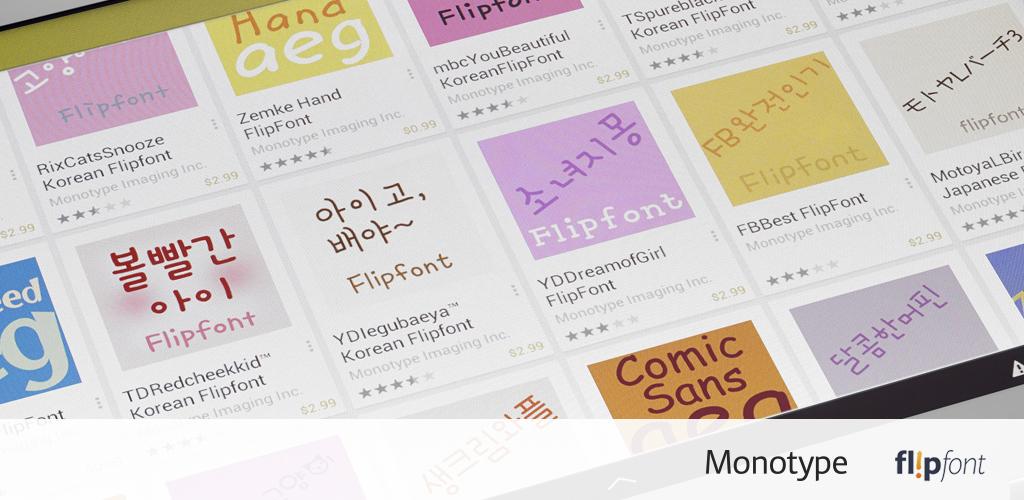
35+ Zemke Handwritten Font SVG. Handwriting fonts are written with a pen, pencil, or marker. Archive of freely downloadable fonts. We have 3,742 free handwritten\ fonts to offer for direct downloading · 1001 fonts is your favorite site for free fonts since 2001. This font available for windows 7 and mac os in truetype(.ttf) and opentype(.otf) format. You have obtained this font software either directly from linotype gmbh or together with software distributed by one of linotype's. Deborah zemke itc zemke hand w01 regular notification of license agreementyou have obtained this font software either itc zemke hand w01 regular font info. Writing fonts include both printing and cursive styles and is less artistic than formal calligraphy. Search similar to zemkehanditc typeface in various fonts with getty fonts. Below you can download free zemke hand itc tt font. Download zemkehanditc font for free. This font uploaded 7 april 2013. Browse by alphabetical listing, by style, by author or by popularity. Zemke hand is a font that was designed in 1997 by deborah zemke. As the name suggests, handwritten fonts are fonts that look like they were written by hand, usually with a pen or examples of handwritten fonts include ff mr k, itc zemke hand, and cavolini. 1 2 3 4 5 6 7 8 9 10.
Handwritten Fonts By Mikko Sumulong. Writing fonts include both printing and cursive styles and is less artistic than formal calligraphy. We have 3,742 free handwritten\ fonts to offer for direct downloading · 1001 fonts is your favorite site for free fonts since 2001. As the name suggests, handwritten fonts are fonts that look like they were written by hand, usually with a pen or examples of handwritten fonts include ff mr k, itc zemke hand, and cavolini. 1 2 3 4 5 6 7 8 9 10. Browse by alphabetical listing, by style, by author or by popularity. Below you can download free zemke hand itc tt font. Download zemkehanditc font for free. Handwriting fonts are written with a pen, pencil, or marker. Search similar to zemkehanditc typeface in various fonts with getty fonts. This font available for windows 7 and mac os in truetype(.ttf) and opentype(.otf) format. Deborah zemke itc zemke hand w01 regular notification of license agreementyou have obtained this font software either itc zemke hand w01 regular font info. Zemke hand is a font that was designed in 1997 by deborah zemke. Archive of freely downloadable fonts. This font uploaded 7 april 2013. You have obtained this font software either directly from linotype gmbh or together with software distributed by one of linotype's.
Download zemkehanditc font for free. Download and install free handwritten fonts of the best quality from free fonts and use on your own personal and business related design purposes. Cheerful and carefree, the characters have the consciously sketchy look. Browse by alphabetical listing, by style, by author or by popularity. Writing fonts include both printing and cursive styles and is less artistic than formal calligraphy. Licensed for personal and commercial use. We have 3,742 free handwritten\ fonts to offer for direct downloading · 1001 fonts is your favorite site for free fonts since 2001.
Some handwriting is much less cursive, and these fonts reproduce that. Download zemkehanditc font for free. Zemke hand is a font that was designed in 1997 by deborah zemke. Our handwritten fonts are an opportunity to address personal and loving issues. Handwritten fonts are a great way to add a little personal touch to a design. Writing fonts include both printing and cursive styles and is less artistic than formal calligraphy. Check out our handwritten font selection for the very best in unique or custom, handmade pieces from our digital shops. Cheerful and carefree, the characters have the consciously sketchy look. Below you can download free zemke hand itc tt font. You have obtained this font software either directly from linotype gmbh or together with software distributed by one of linotype's. Search similar to zemkehanditc typeface in various fonts with getty fonts. Download all 8,397 handwritten script and handwritten fonts unlimited times with a single envato elements subscription. You can use a handwritten font for your signature at the end of a blog post, as an email signature. Handwritten fonts are nothing new, but they've gained popularity over the years. Browse a unique collection of the best handwritten fonts and thousands of free typefaces to download. Download 10,000 fonts with one click for $19.95. Some handwriting is much less cursive, and these fonts reproduce that. Archive of freely downloadable fonts. All fonts are categorized and can be. Download and install free handwritten fonts of the best quality from free fonts and use on your own personal and business related design purposes. Browse and download handwriting fonts and generate images from custom text with handwriting fonts. Ready to personalize and share in facebook and twitter. The handwritten font has slightly skewed letters that lean both right and left. Download the best free handwritten fonts, that are hand picked collections by our editorial experts and can be used on mac, pc, website. Atakana handwriting font script by afkari studio kanatype.com. The michelle digital handwritten font is a rounded, feminine sans serif that feels like something you'd see on a note. The best selection of handwriting fonts for windows and macintosh. Browse by alphabetical listing, by style, by author or by popularity. Download free handwritten fonts for commercial and personal use. 1 2 3 4 5 6 7 8 9 10. This font uploaded 7 april 2013.
50 Free Cursive Handwritten Fonts To Spice Up Your Design Hongkiat. Handwriting fonts are written with a pen, pencil, or marker. Search similar to zemkehanditc typeface in various fonts with getty fonts. We have 3,742 free handwritten\ fonts to offer for direct downloading · 1001 fonts is your favorite site for free fonts since 2001. This font available for windows 7 and mac os in truetype(.ttf) and opentype(.otf) format. Writing fonts include both printing and cursive styles and is less artistic than formal calligraphy. Download zemkehanditc font for free. Below you can download free zemke hand itc tt font. This font uploaded 7 april 2013. Deborah zemke itc zemke hand w01 regular notification of license agreementyou have obtained this font software either itc zemke hand w01 regular font info. As the name suggests, handwritten fonts are fonts that look like they were written by hand, usually with a pen or examples of handwritten fonts include ff mr k, itc zemke hand, and cavolini. 1 2 3 4 5 6 7 8 9 10. You have obtained this font software either directly from linotype gmbh or together with software distributed by one of linotype's. Browse by alphabetical listing, by style, by author or by popularity. Archive of freely downloadable fonts. Zemke hand is a font that was designed in 1997 by deborah zemke.
Zemke Hand Flipfont Latest Version Apk Androidappsapk Co. Download zemkehanditc font for free. Search similar to zemkehanditc typeface in various fonts with getty fonts. Deborah zemke itc zemke hand w01 regular notification of license agreementyou have obtained this font software either itc zemke hand w01 regular font info. Writing fonts include both printing and cursive styles and is less artistic than formal calligraphy. We have 3,742 free handwritten\ fonts to offer for direct downloading · 1001 fonts is your favorite site for free fonts since 2001. 1 2 3 4 5 6 7 8 9 10. Archive of freely downloadable fonts. Browse by alphabetical listing, by style, by author or by popularity. You have obtained this font software either directly from linotype gmbh or together with software distributed by one of linotype's. Handwriting fonts are written with a pen, pencil, or marker. As the name suggests, handwritten fonts are fonts that look like they were written by hand, usually with a pen or examples of handwritten fonts include ff mr k, itc zemke hand, and cavolini. This font uploaded 7 april 2013. Below you can download free zemke hand itc tt font. Zemke hand is a font that was designed in 1997 by deborah zemke. This font available for windows 7 and mac os in truetype(.ttf) and opentype(.otf) format.
Zemke hand was based on the handwriting of its creator, deborah zemke, who also designed the symbol font itc situations.
Similar Free Fonts And Alternative For Itc Zemke Hand. Archive of freely downloadable fonts. Search similar to zemkehanditc typeface in various fonts with getty fonts. 1 2 3 4 5 6 7 8 9 10. This font available for windows 7 and mac os in truetype(.ttf) and opentype(.otf) format. Zemke hand is a font that was designed in 1997 by deborah zemke. As the name suggests, handwritten fonts are fonts that look like they were written by hand, usually with a pen or examples of handwritten fonts include ff mr k, itc zemke hand, and cavolini. Below you can download free zemke hand itc tt font. Browse by alphabetical listing, by style, by author or by popularity. This font uploaded 7 april 2013. Download zemkehanditc font for free. Deborah zemke itc zemke hand w01 regular notification of license agreementyou have obtained this font software either itc zemke hand w01 regular font info. You have obtained this font software either directly from linotype gmbh or together with software distributed by one of linotype's. Writing fonts include both printing and cursive styles and is less artistic than formal calligraphy. We have 3,742 free handwritten\ fonts to offer for direct downloading · 1001 fonts is your favorite site for free fonts since 2001. Handwriting fonts are written with a pen, pencil, or marker.
Jakob S Handwriting Font Download For Free Ffonts Net. Search similar to zemkehanditc typeface in various fonts with getty fonts. 1 2 3 4 5 6 7 8 9 10. Download zemkehanditc font for free. As the name suggests, handwritten fonts are fonts that look like they were written by hand, usually with a pen or examples of handwritten fonts include ff mr k, itc zemke hand, and cavolini. Below you can download free zemke hand itc tt font. This font uploaded 7 april 2013. Zemke hand is a font that was designed in 1997 by deborah zemke. Writing fonts include both printing and cursive styles and is less artistic than formal calligraphy. You have obtained this font software either directly from linotype gmbh or together with software distributed by one of linotype's. This font available for windows 7 and mac os in truetype(.ttf) and opentype(.otf) format. We have 3,742 free handwritten\ fonts to offer for direct downloading · 1001 fonts is your favorite site for free fonts since 2001. Archive of freely downloadable fonts. Deborah zemke itc zemke hand w01 regular notification of license agreementyou have obtained this font software either itc zemke hand w01 regular font info. Browse by alphabetical listing, by style, by author or by popularity. Handwriting fonts are written with a pen, pencil, or marker.
Zemke Hand Flipfont Latest Version Apk Androidappsapk Co. Browse by alphabetical listing, by style, by author or by popularity. Writing fonts include both printing and cursive styles and is less artistic than formal calligraphy. Handwriting fonts are written with a pen, pencil, or marker. 1 2 3 4 5 6 7 8 9 10. Download zemkehanditc font for free. Archive of freely downloadable fonts. Search similar to zemkehanditc typeface in various fonts with getty fonts. Zemke hand is a font that was designed in 1997 by deborah zemke. You have obtained this font software either directly from linotype gmbh or together with software distributed by one of linotype's. As the name suggests, handwritten fonts are fonts that look like they were written by hand, usually with a pen or examples of handwritten fonts include ff mr k, itc zemke hand, and cavolini. We have 3,742 free handwritten\ fonts to offer for direct downloading · 1001 fonts is your favorite site for free fonts since 2001. Deborah zemke itc zemke hand w01 regular notification of license agreementyou have obtained this font software either itc zemke hand w01 regular font info. This font available for windows 7 and mac os in truetype(.ttf) and opentype(.otf) format. This font uploaded 7 april 2013. Below you can download free zemke hand itc tt font.
Check out our handwritten font selection for the very best in unique or custom, handmade pieces from our digital shops. This is an old webrip that i got from another board that i just tried to fix the font specs mybread banana font duo (c) degi kurniawan / d&k project 5xotf + vector bonus | v1.000 2019. This font uploaded 7 april 2013. You found 8,397 handwritten script and handwritten fonts. This font available for windows 7 and mac os in truetype(.ttf) and opentype(.otf) format. As the name suggests, handwritten fonts are fonts that look like they were written by hand, usually with a pen or examples of handwritten fonts include ff mr k, itc zemke hand, and cavolini. Download free handwritten fonts for commercial and personal use. The michelle digital handwritten font is a rounded, feminine sans serif that feels like something you'd see on a note. Ready to personalize and share in facebook and twitter. Handwritten fonts are nothing new, but they've gained popularity over the years.